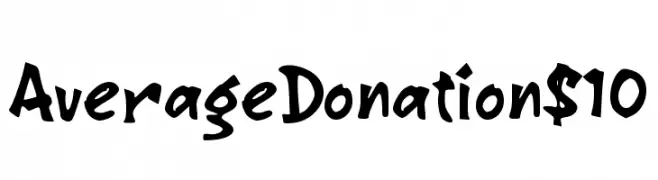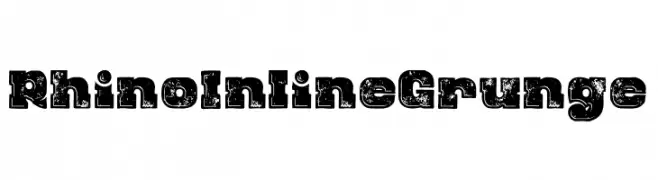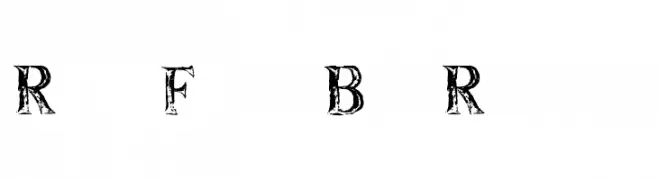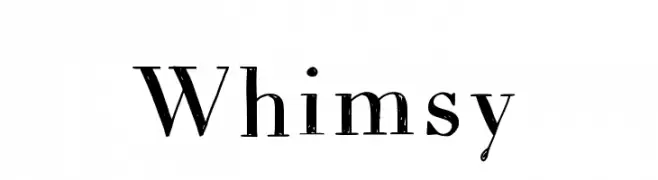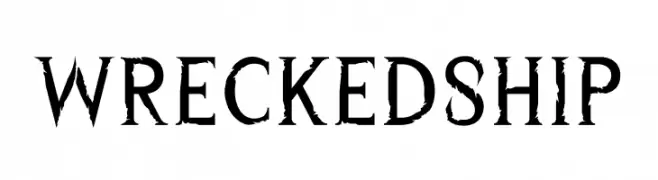
A bold, decorative font with a vintage style and high contrast strokes.
A bold, distressed font with a vintage collegiate style and textured appearance.
A distressed, monospaced font with a vintage, weathered look.
A bold, distressed font with a rustic, vintage feel.
A distressed, grunge-style font with a vintage typewriter aesthetic.
A playful, handwritten-style font with bold, energetic strokes.
A distressed serif font with a vintage, textured style.
A bold, distressed font with a grunge effect and inline design.
A rugged, distressed font with jagged edges and an organic feel.
A decorative, distressed font with a vintage, artistic style.